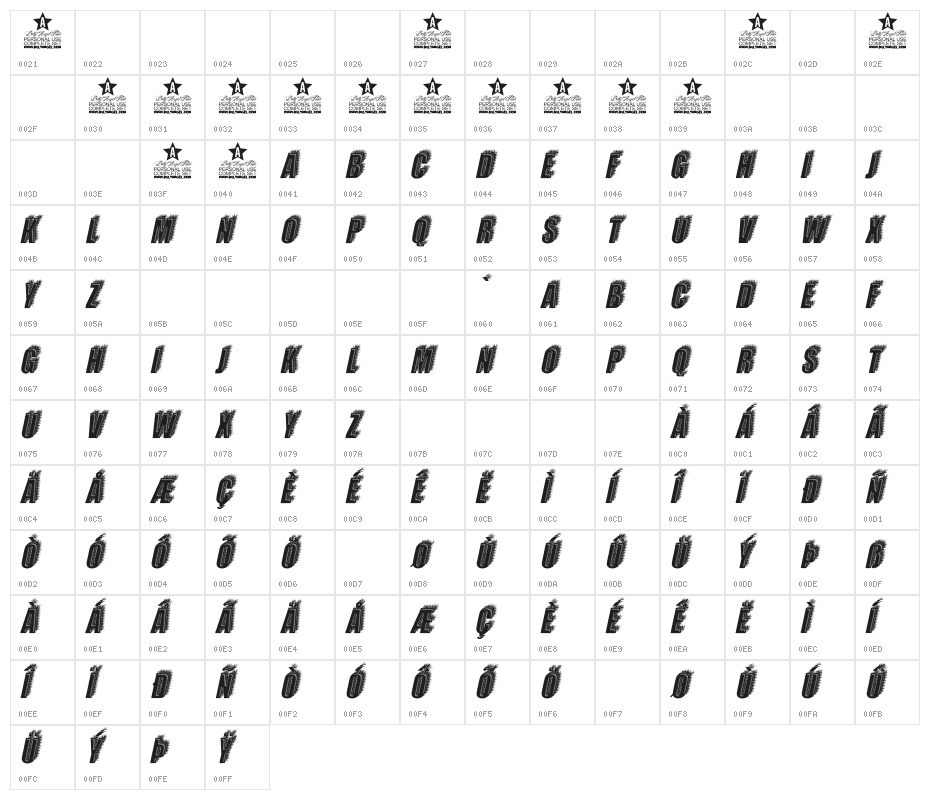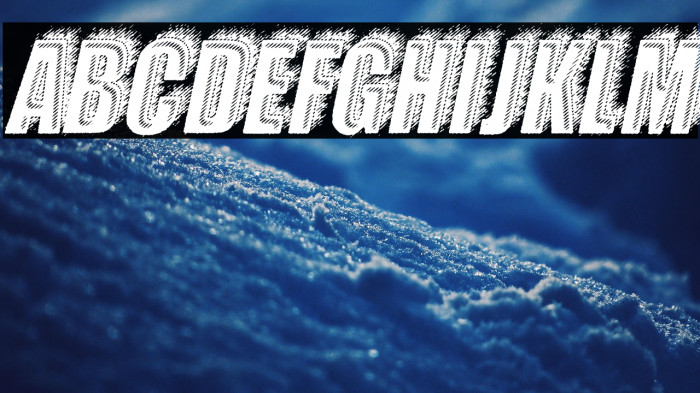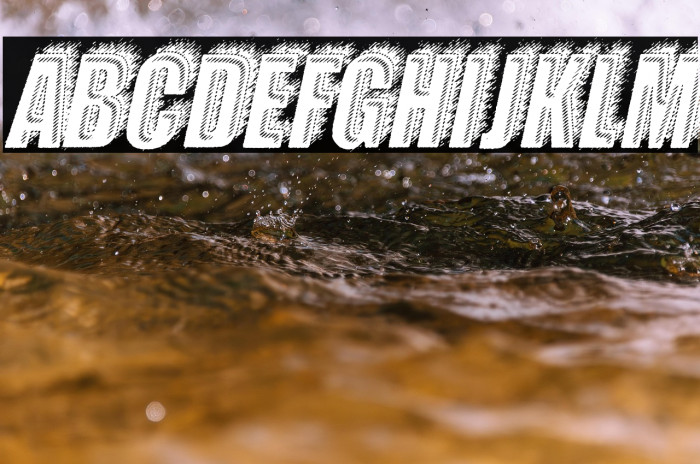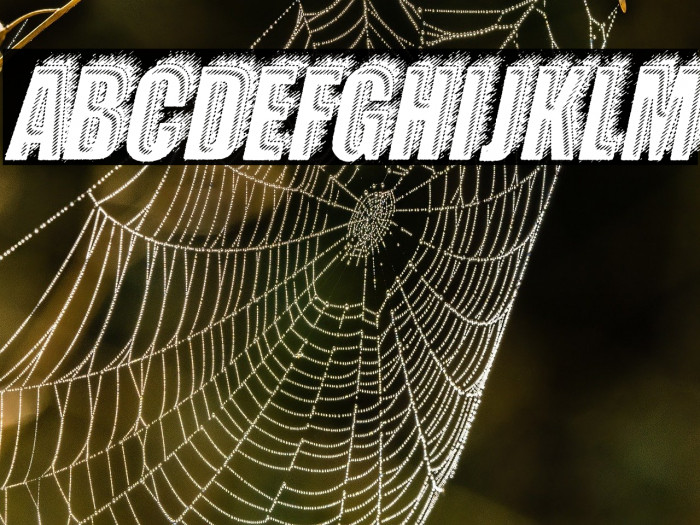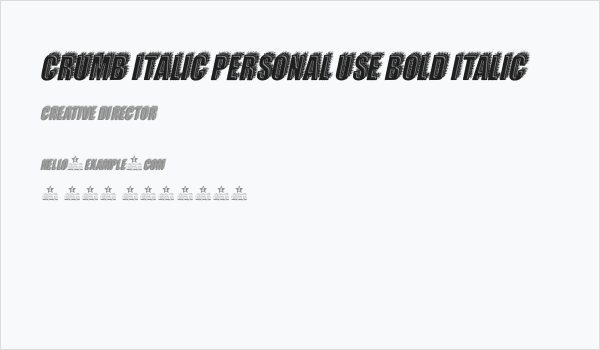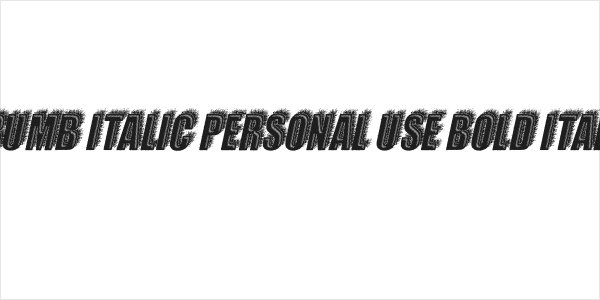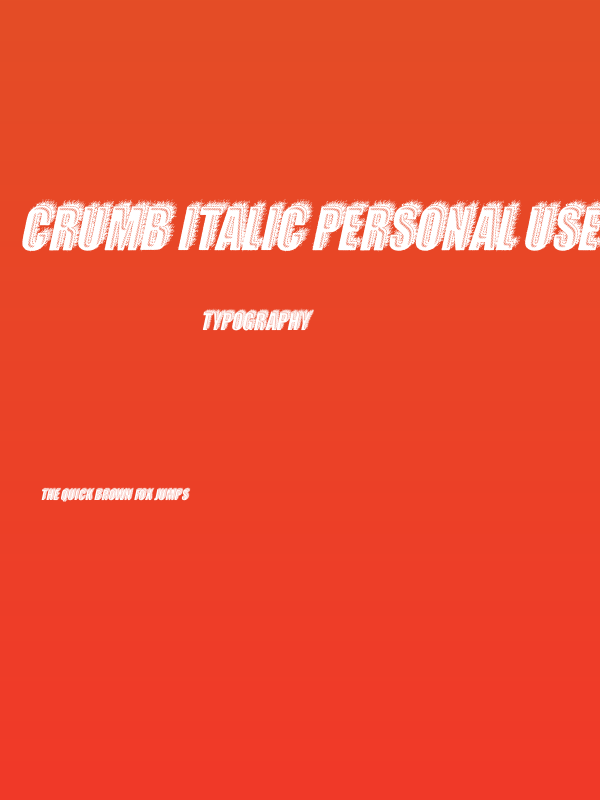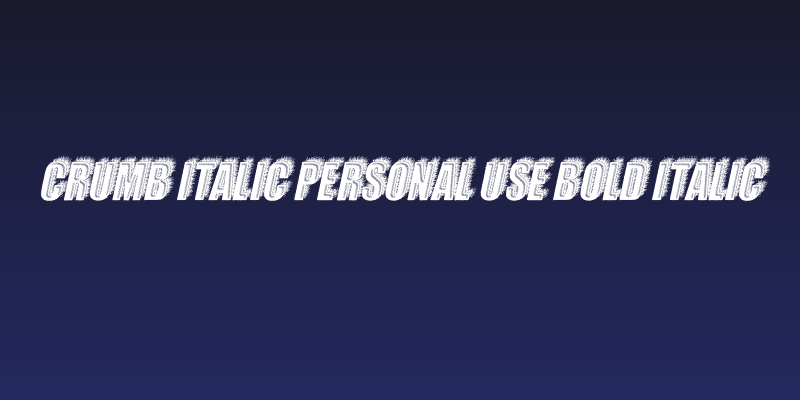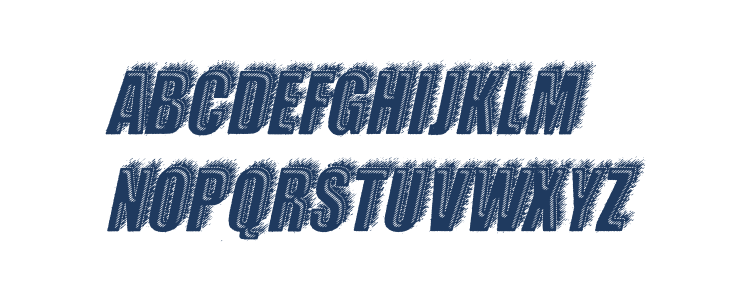
CRUMB ITALIC PERSONAL USE Bold Italic Font
CRUMB ITALIC PERSONAL USE Bold Italic Description
This font features a bold and italicized style with a distinct textured appearance. The letters are heavily slanted, giving a dynamic and energetic feel. The strokes are thick and have a rough, sketch-like texture that adds a unique character to the text. This font is designed to stand out, making it suitable for attention-grabbing headlines or creative projects. The uppercase letters are prominent, and the overall design conveys a sense of movement and boldness.
| Proposed Projects | Ideal for posters, album covers, branding, and any project that requires a bold and dynamic visual impact. |